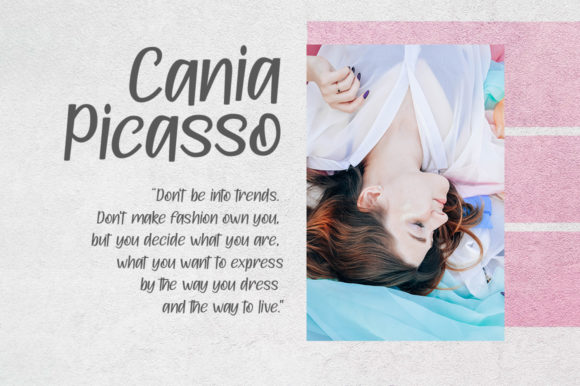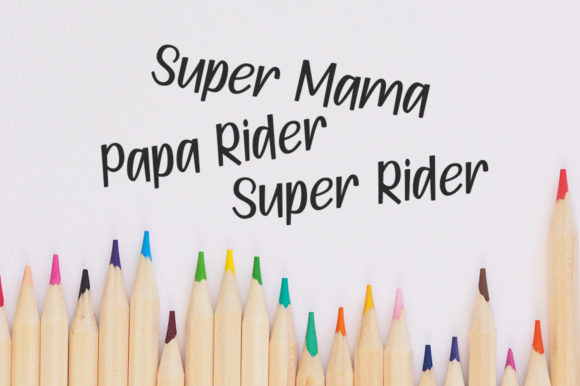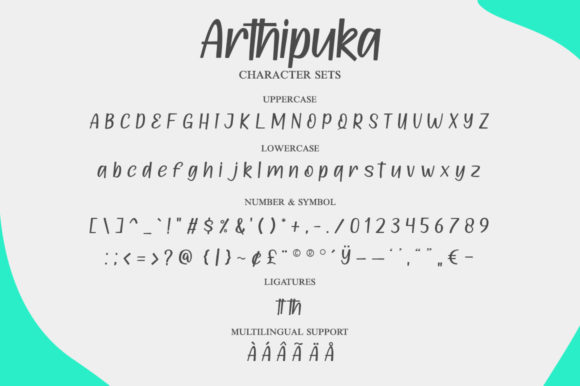
Unleash Your Inner Child with the Enchanting Arthipuka Font
Do you remember the thrill of sitting down with a blank piece of paper, a pencil, and a burst of creative energy? The possibilities seemed endless, and your imagination knew no bounds. This is the magic that the Arthipuka Font is designed to capture – the carefree spirit of childhood, where creativity knows no limits.
| 👤 Author | motokiwo |
Arthipuka Font is a charming, handwritten font that brings a touch of whimsy to any project. Its childlike playfulness is perfect for kids and school projects, but its unique character also makes it a valuable asset for designers looking to add a personal touch to their work. With its authentic, hand-drawn feel, the Arthipuka Font is sure to turn any creative idea into a true standout.
Key Features of Arthipuka Font
- Unique Characteristics: Features a unique blend of traditional and modern design elements, with intricate details and subtle nuances that set it apart from other fonts
Arthipuka Font Review
As a designer, I’ve had the chance to work with various fonts, and my experience with Arthipuka Font has been an interesting one. Here’s what I think.
- The unique blend of modern and traditional styles gives Arthipuka Font a distinctive look that can add a touch of sophistication to any design.
- The font is highly legible, even at small font sizes, making it suitable for a wide range of applications, from body text to headings.
- The font family includes a variety of weights and styles, allowing for a high degree of customization and flexibility.
- The font may not be suitable for designs that require a bold, attention-grabbing look, as it tends to lean towards a more subtle aesthetic.
- The font’s uniqueness can also be a drawback, as some users may find it too unusual or distracting.
- The font family could benefit from additional language support, particularly for non-Latin scripts.
Arthipuka Font is a solid choice for designers who want to add a touch of elegance and sophistication to their work. While it may not be the best fit for every design project, it’s definitely worth considering for those who want a unique and highly legible font. With a bit more development, I think Arthipuka Font has the potential to become a real standout in the world of typography.
Some tips for getting the most out of the Arthipuka Font include:
- Use the font in combination with other design elements, such as images and graphics.
- Consider using the font for headings or titles to add a touch of elegance.
Common use cases for the Arthipuka Font include:
- Magazine and newspaper headlines.
Alternatives to Arthipuka Font
Comparison: While Arthipuka Font has a unique, hand-drawn feel, Lato Font is more precise and clean-cut, making it ideal for projects where a modern aesthetic is required.